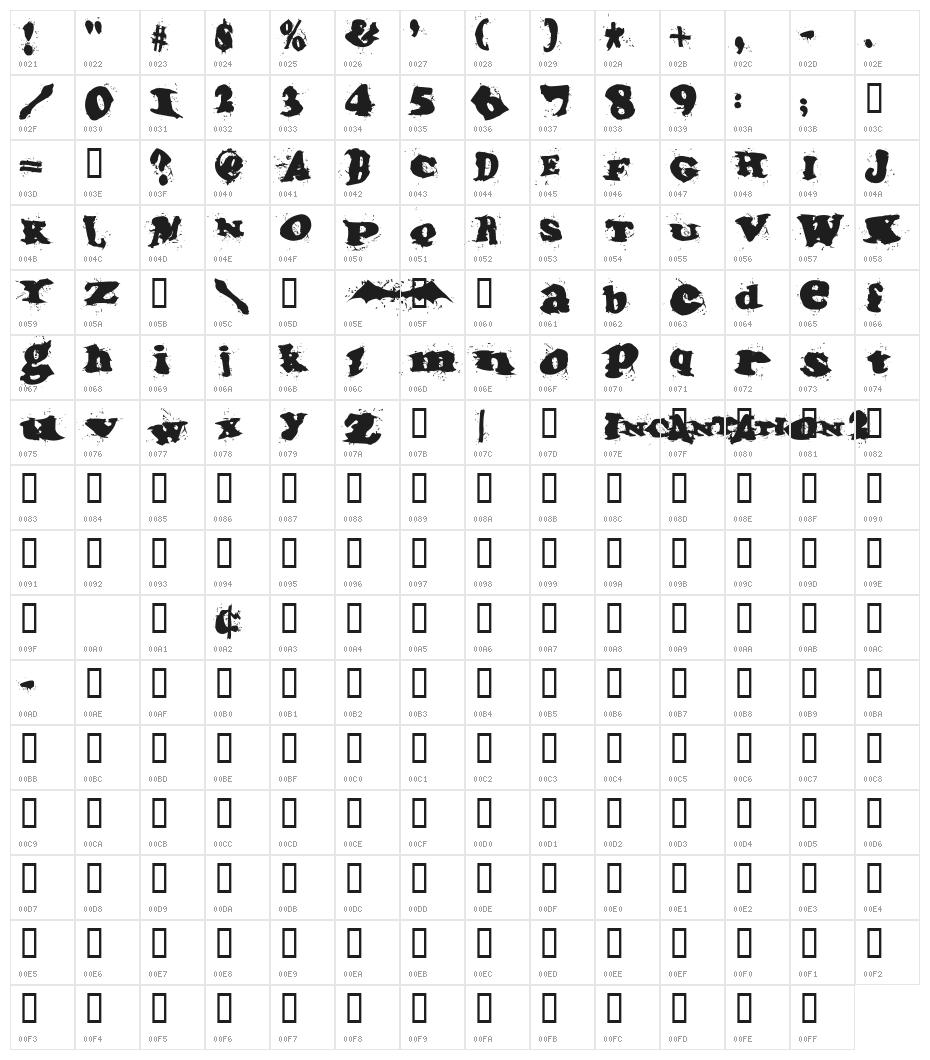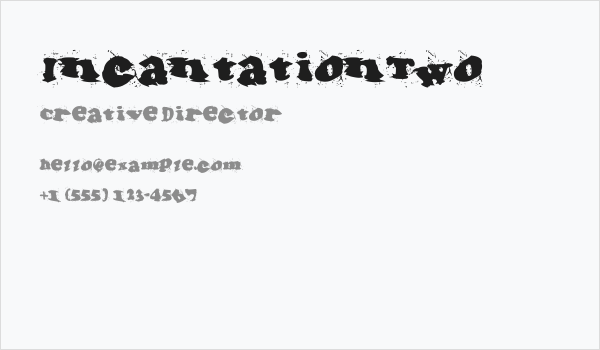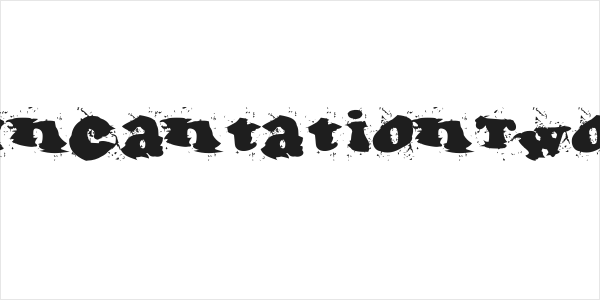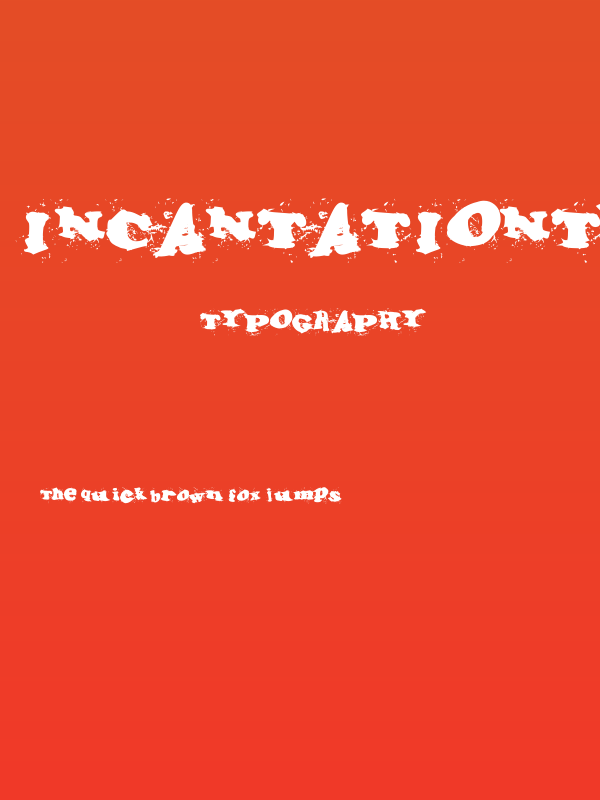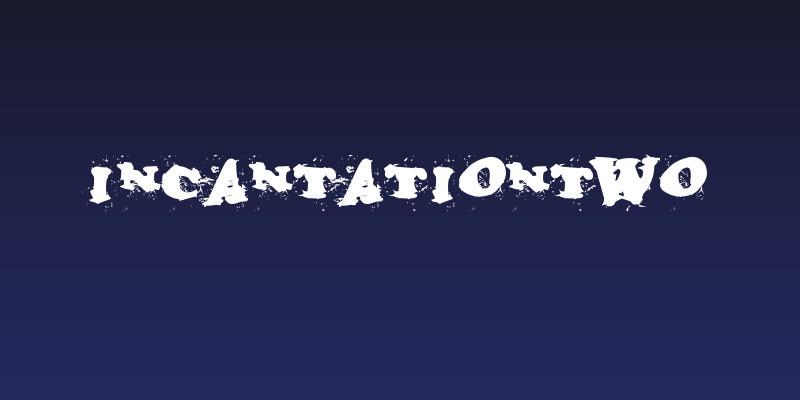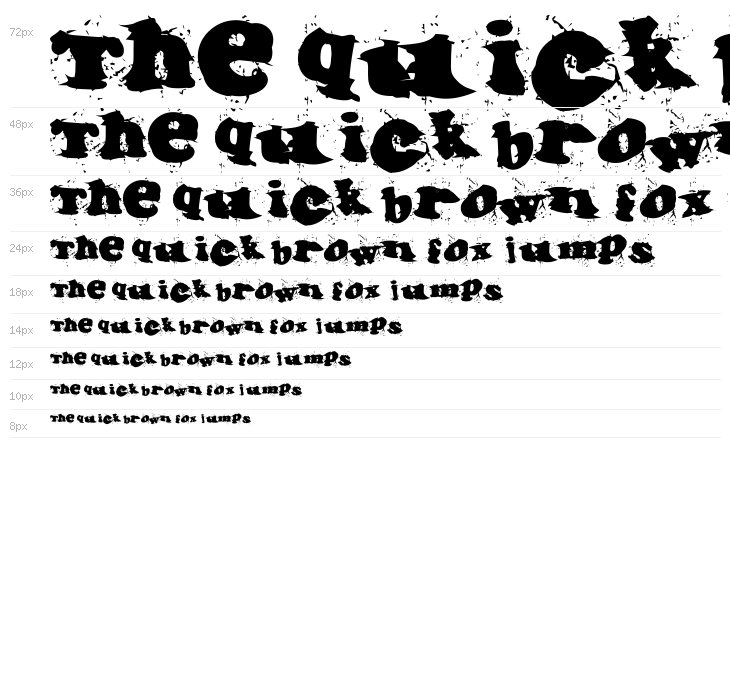
IncantationTwo Font
IncantationTwo Description
This font features a highly decorative and distressed style, with each character appearing as if it has been weathered or eroded over time. The letters have an irregular, jagged edge that gives them a unique, grunge-like appearance. The uppercase and lowercase letters maintain a consistent style, with bold, thick strokes that vary in width, adding to the chaotic and artistic feel. The numbers and special characters follow the same design principles, ensuring a cohesive look throughout. This font is ideal for projects that require a dramatic and eye-catching aesthetic.
| Proposed Projects | Ideal for album covers, posters, horror-themed designs, and edgy branding projects. |